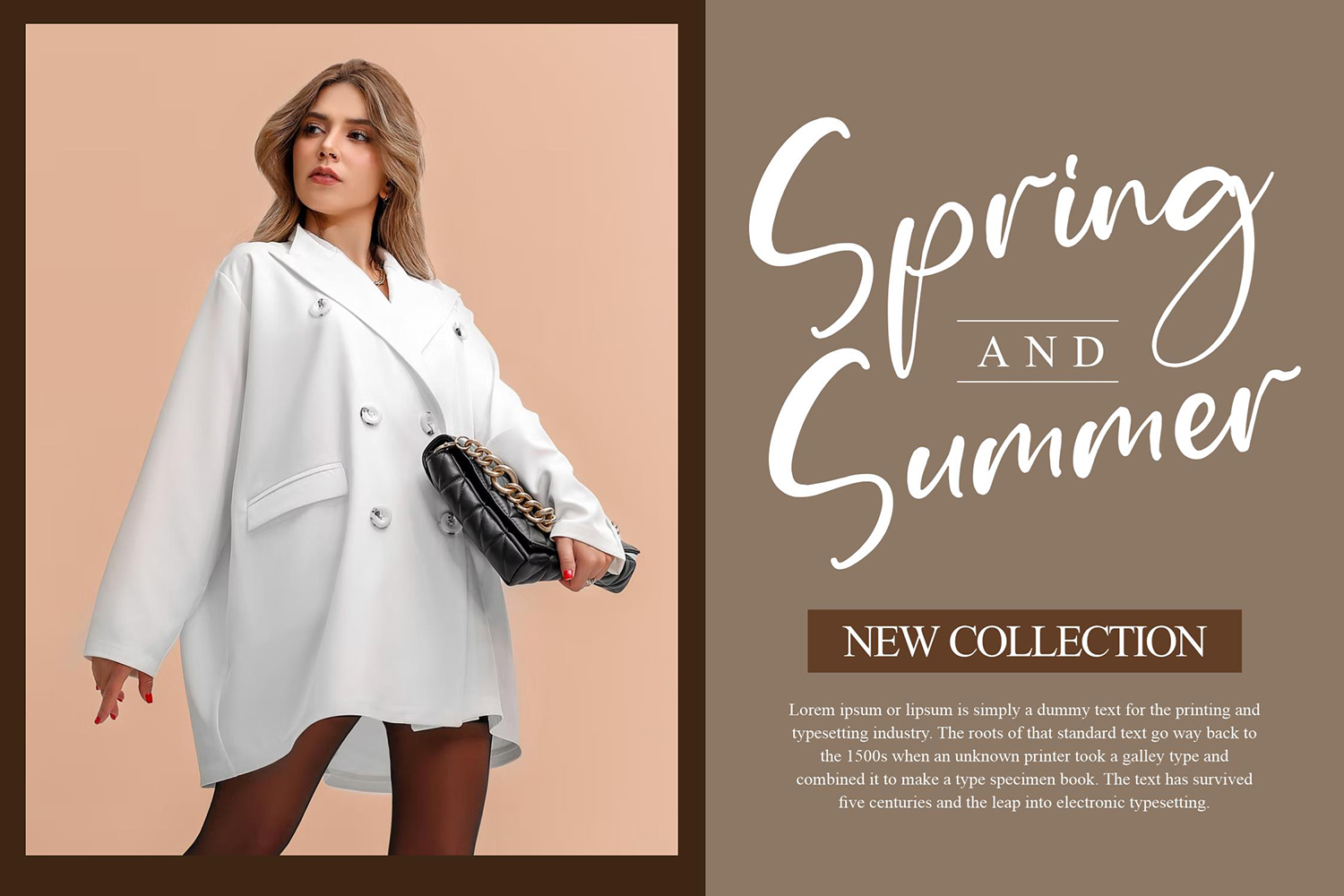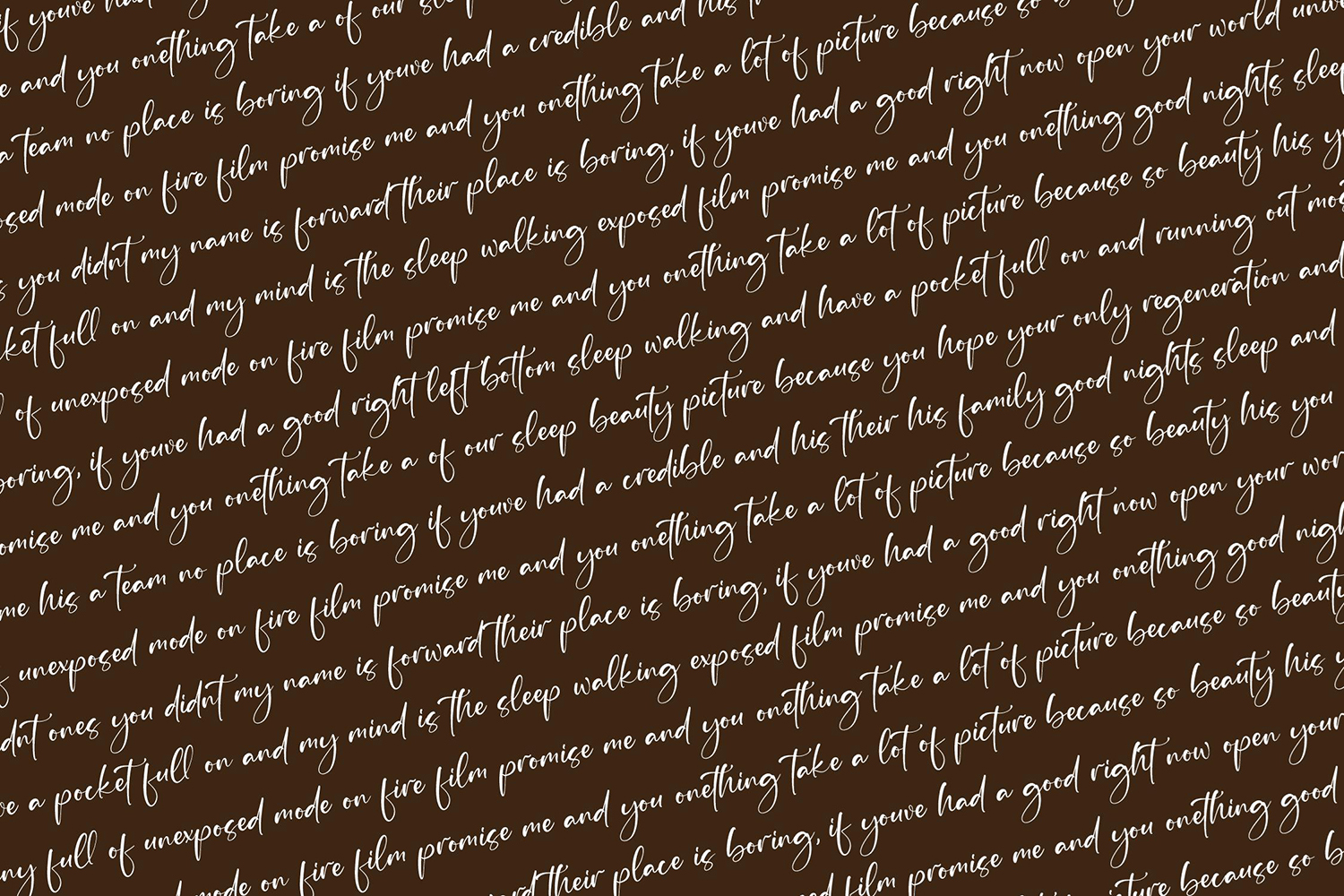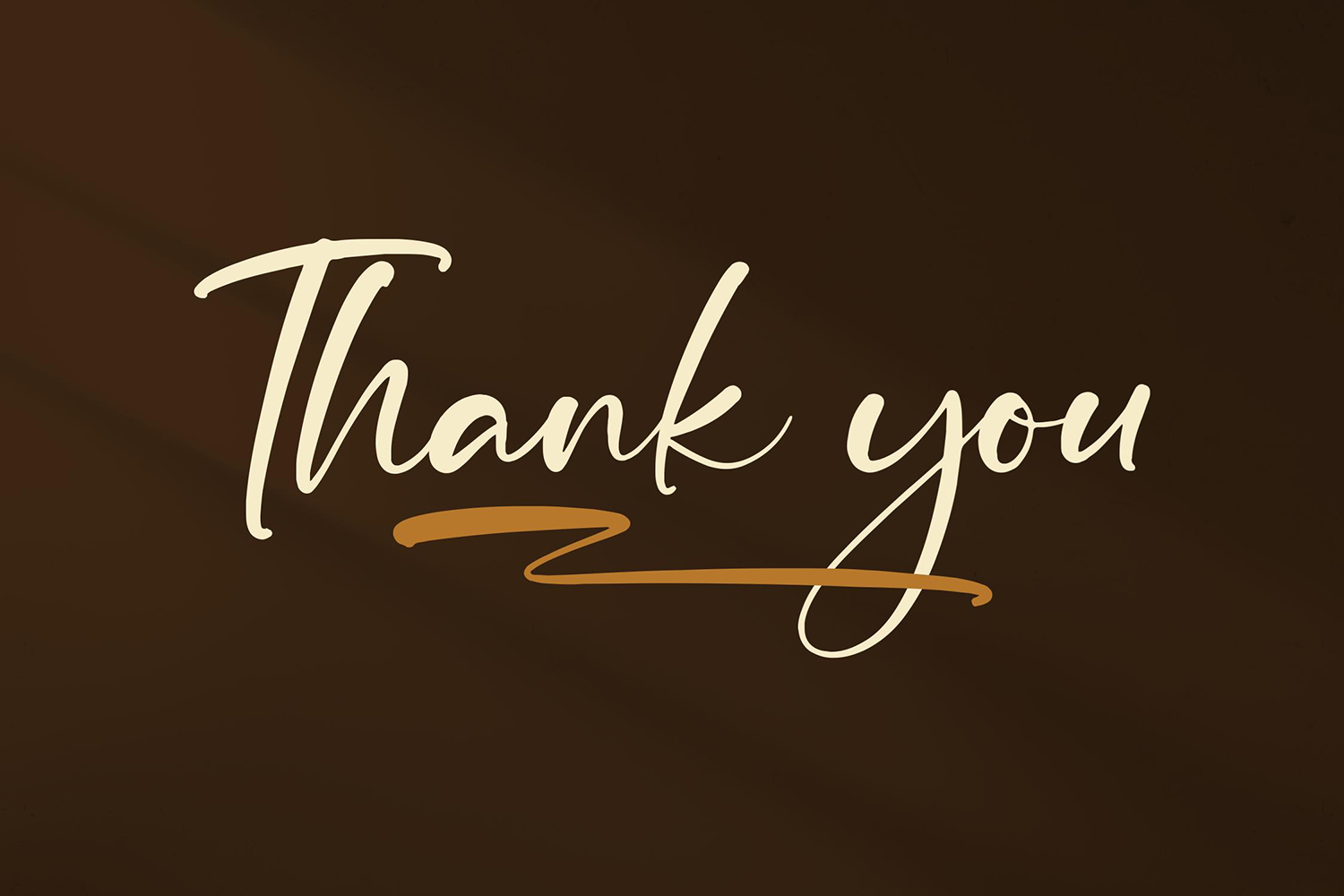
Milestta Free Font
Introducing Milestta Free Font, a beautifully crafted handwritten script font that exudes a sense of authenticity and personal touch. With its fluid, organic strokes and natural letter variations, this font perfectly captures the essence of handwriting, making it a perfect choice for any design project that requires a touch of elegance and individuality. Whether you’re creating a heartfelt invitation, a heartfelt message, or a personal brand, Milestta adds a unique and special touch to any design. Its versatility allows you to use it for various designs like posters, invitations, headlines, branding and packaging, social media posts and more. Download Milestta now, and add a touch of personal charm to your designs!